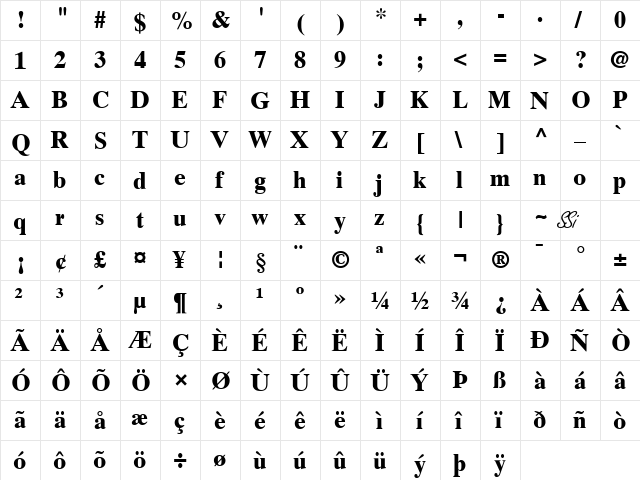
Greco Ten SSi Bold
Greco Ten SSi offers clean, dependable letterforms without strong stylistic allegiance, making it a practical choice for designers who need flexibility. The heavy weight commands attention and anchors typographic hierarchies.